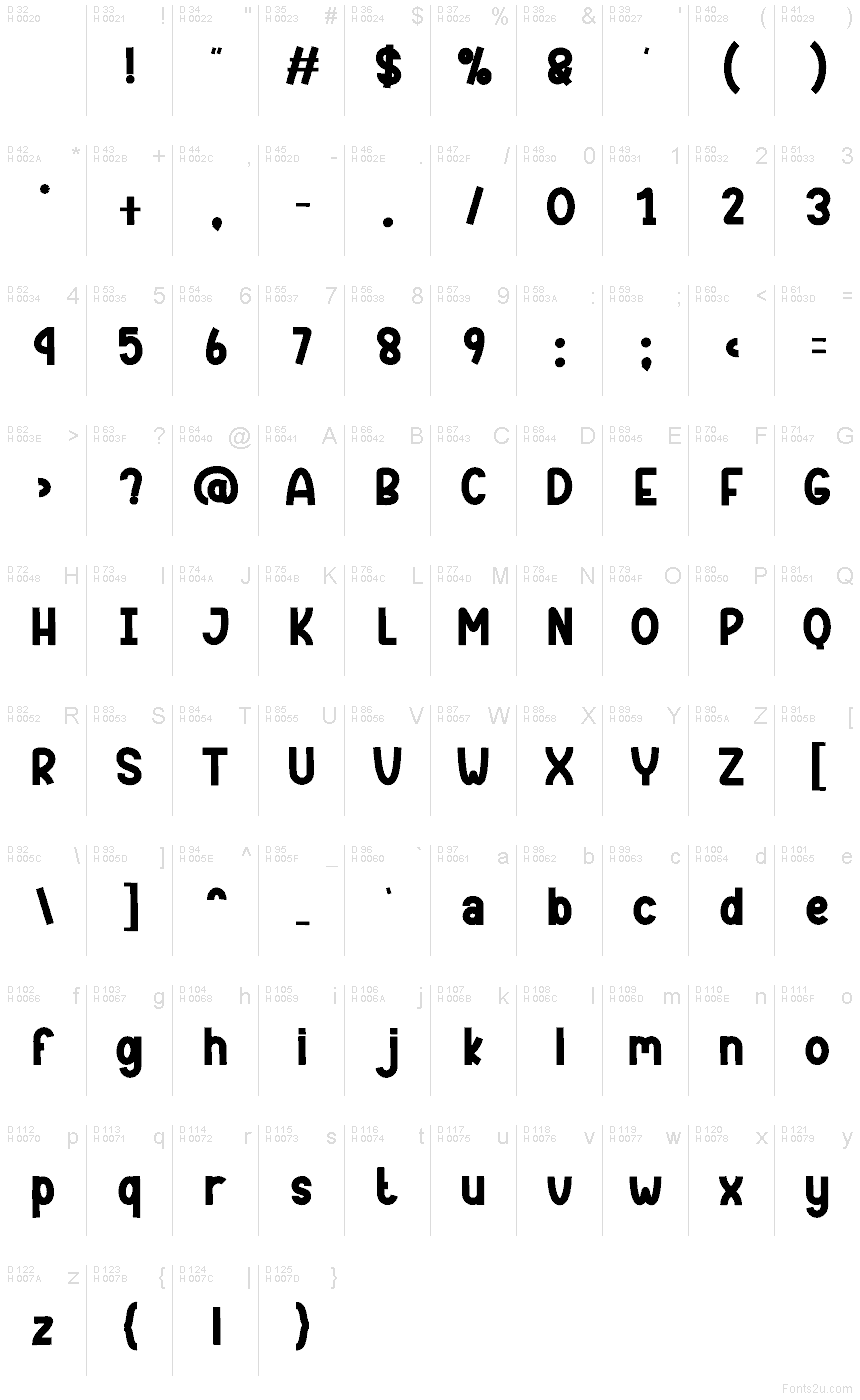
Jovial Mood
Jovial Mood font by Scratchones is a bold, rounded display font that oozes a friendly and casual aesthetic. Its thick appearance combined with an approachable vibe brings a modern feel to any design. Enjoy a free fun look with this typeface whether you’re preparing digital or printed projects.
Use Jovial Mood in book covers, headings, greeting cards, static and animated posts on social media platforms, merchandise items like t-shirts and mugs, invitation cards especially for birthday parties and kids' events, badges, stickers, or advertisements.